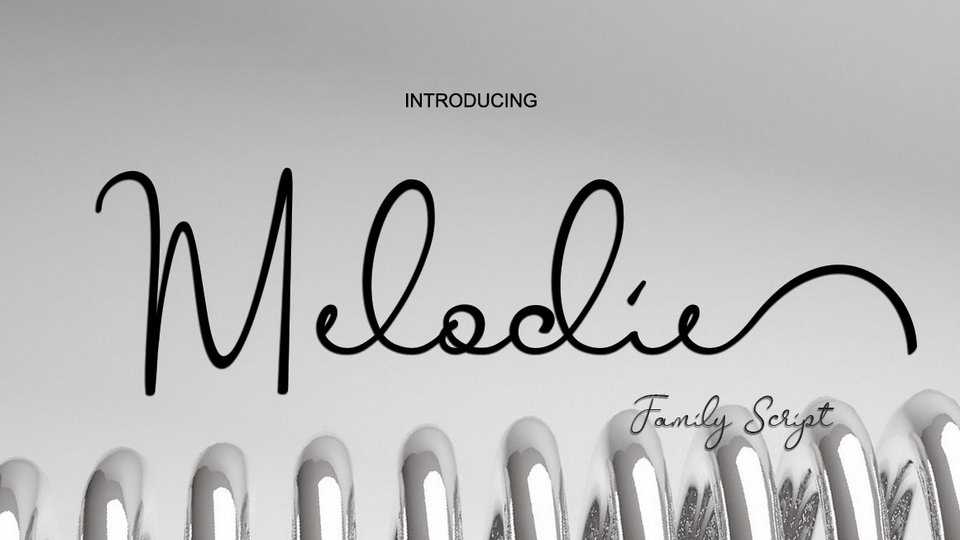
Download Melodie Script – a smooth casual style handwritten font. It is great for personal branding, watermarks, wedding invitations, letters, cards, quotes and other beautiful project.